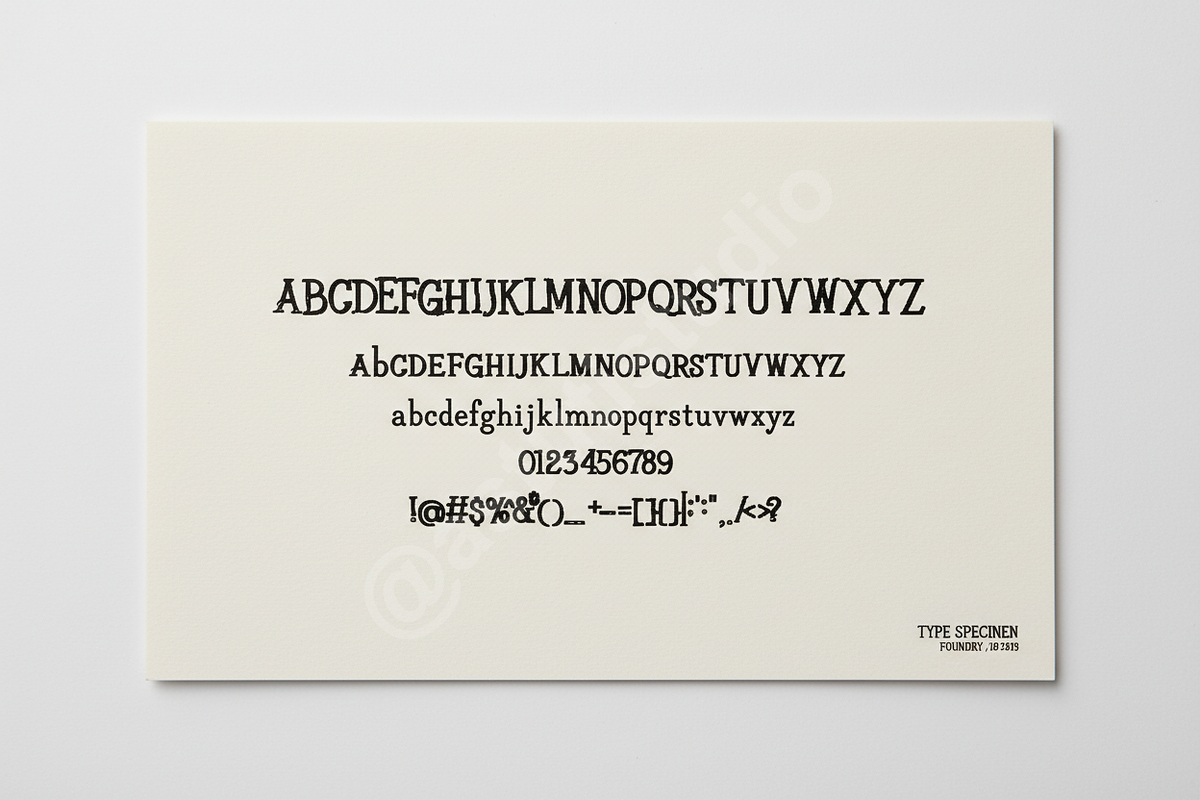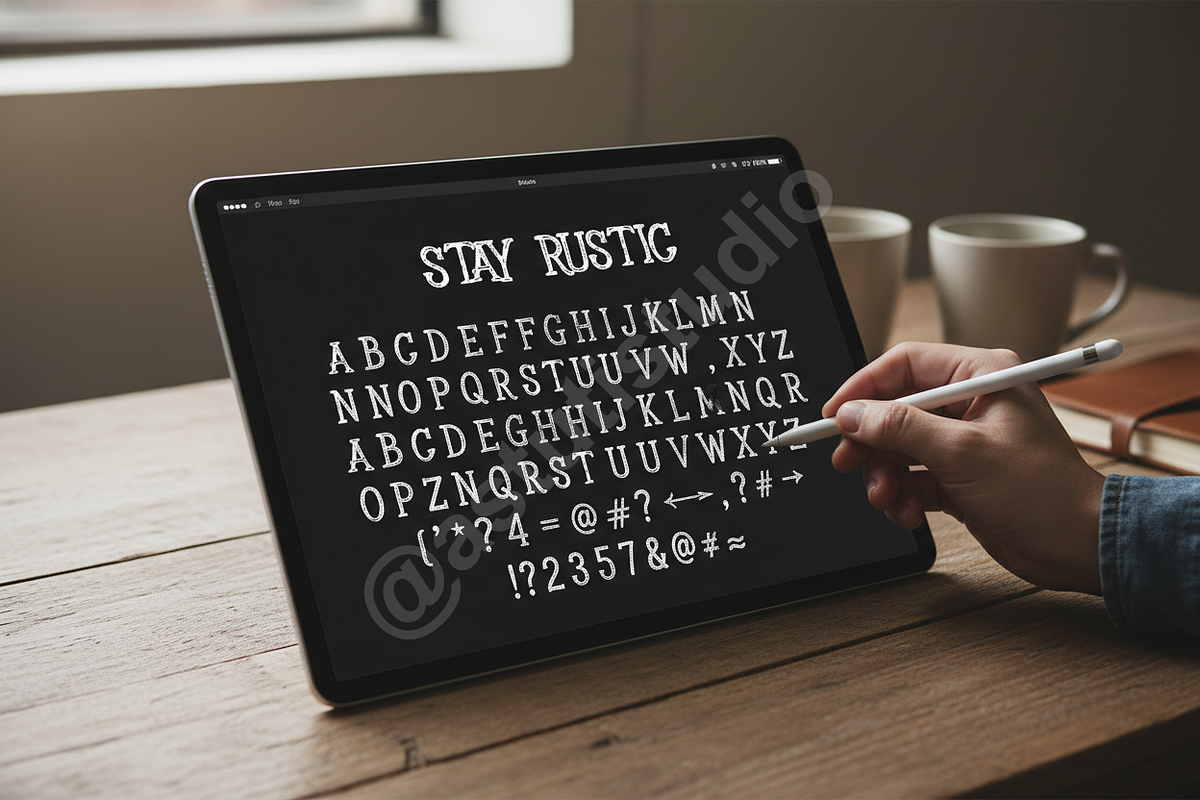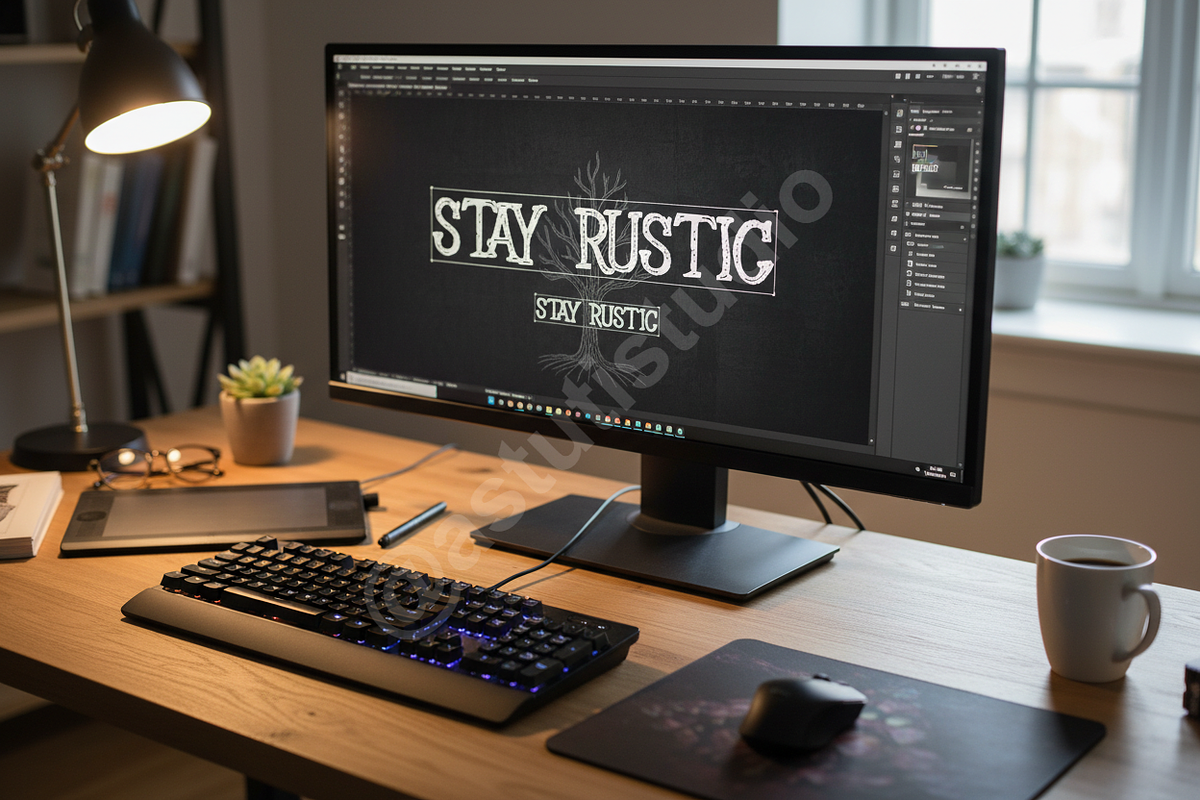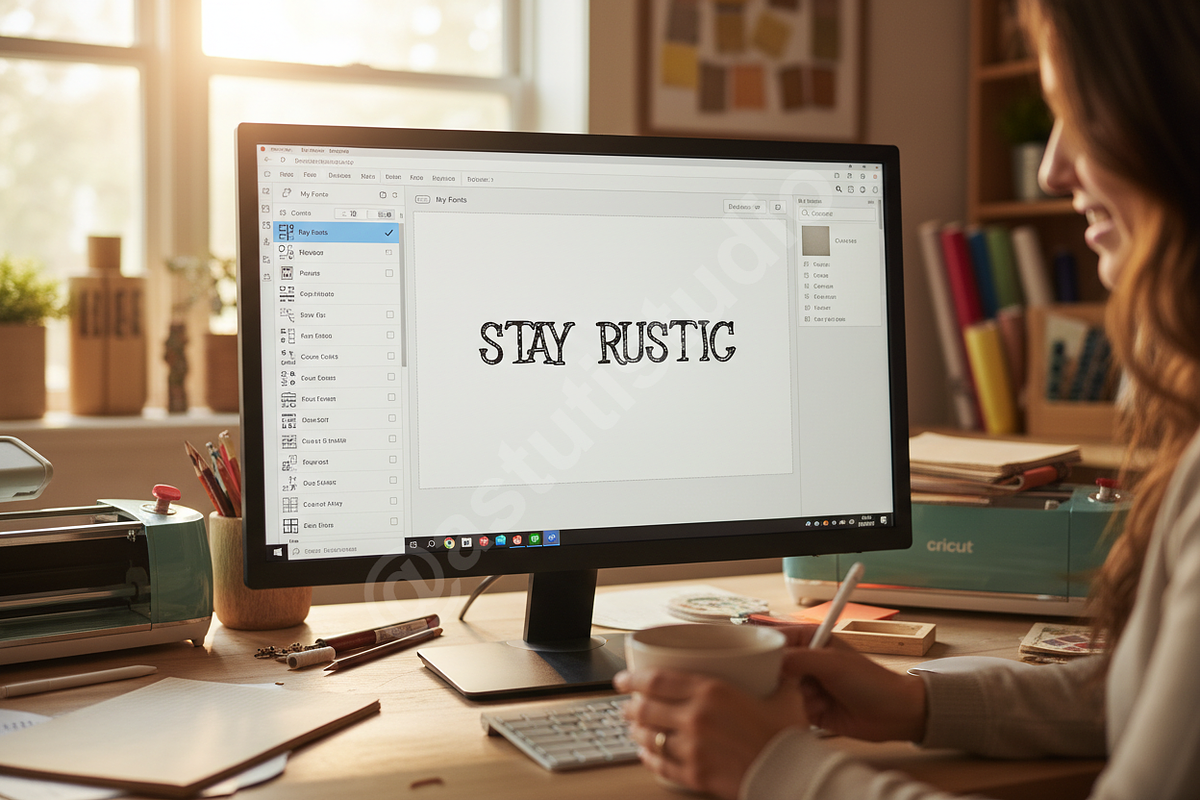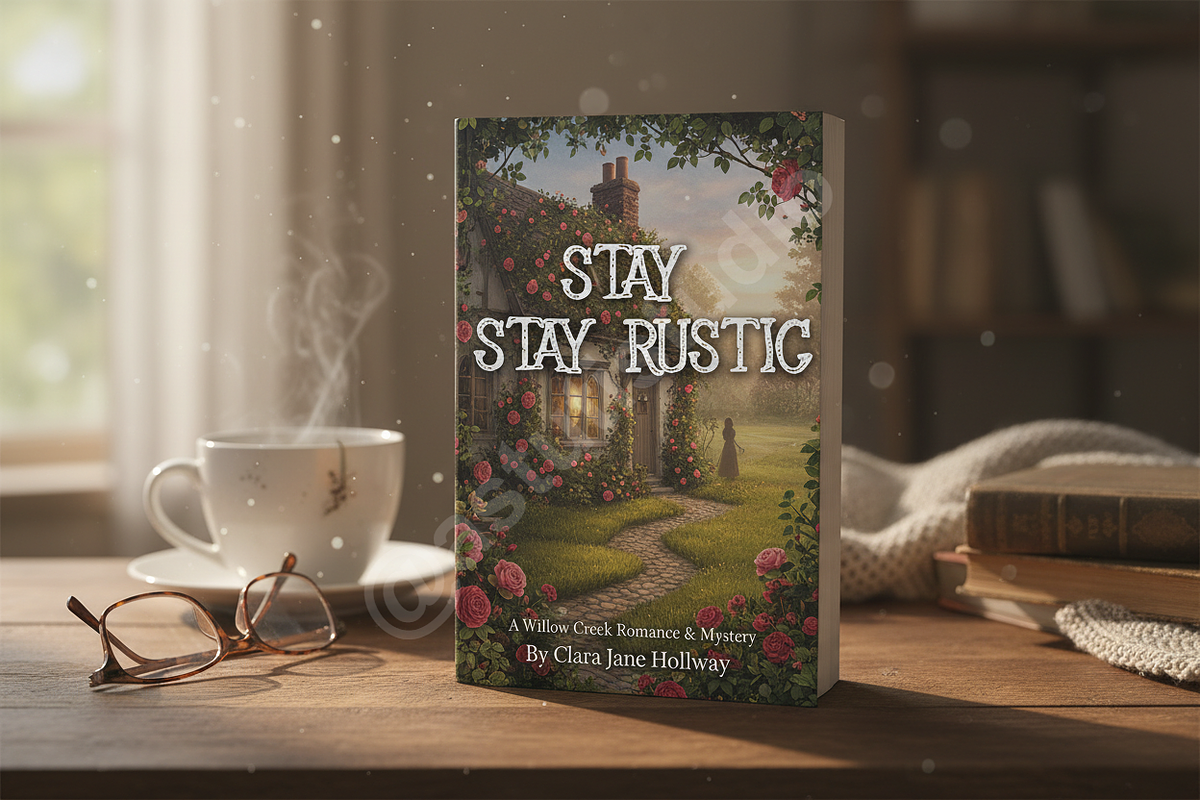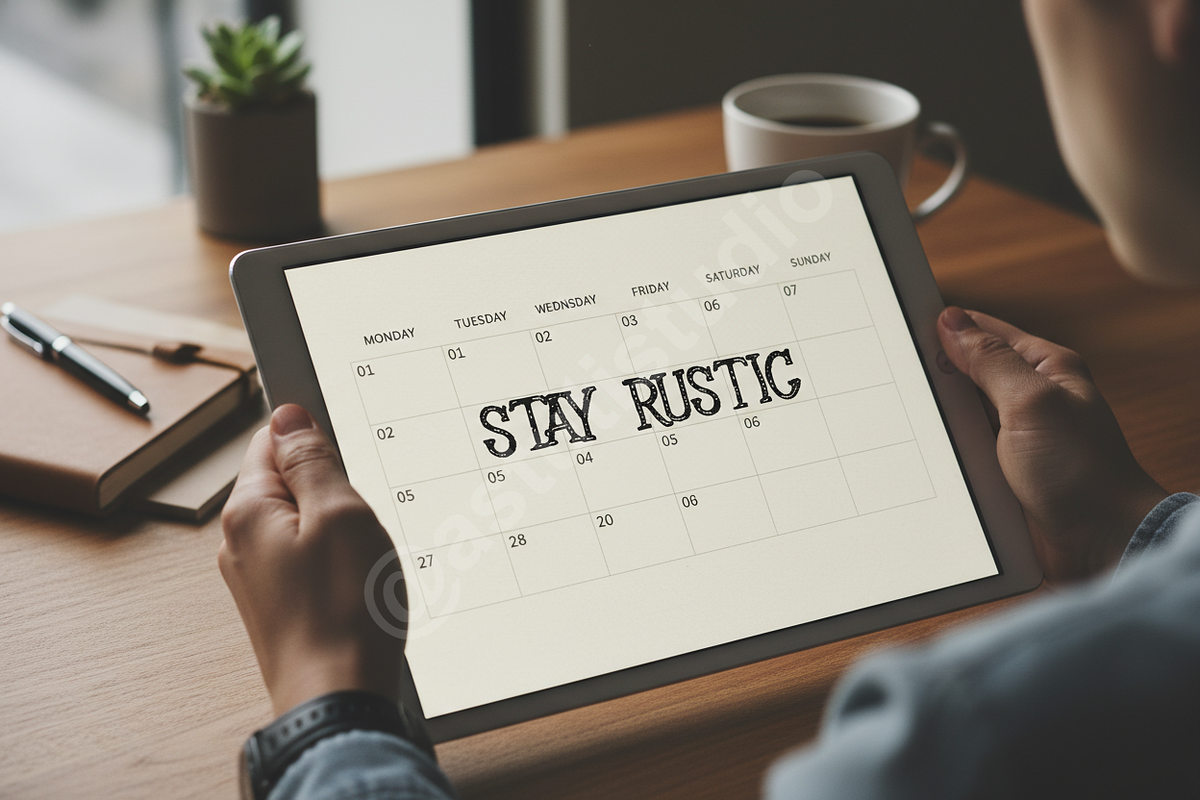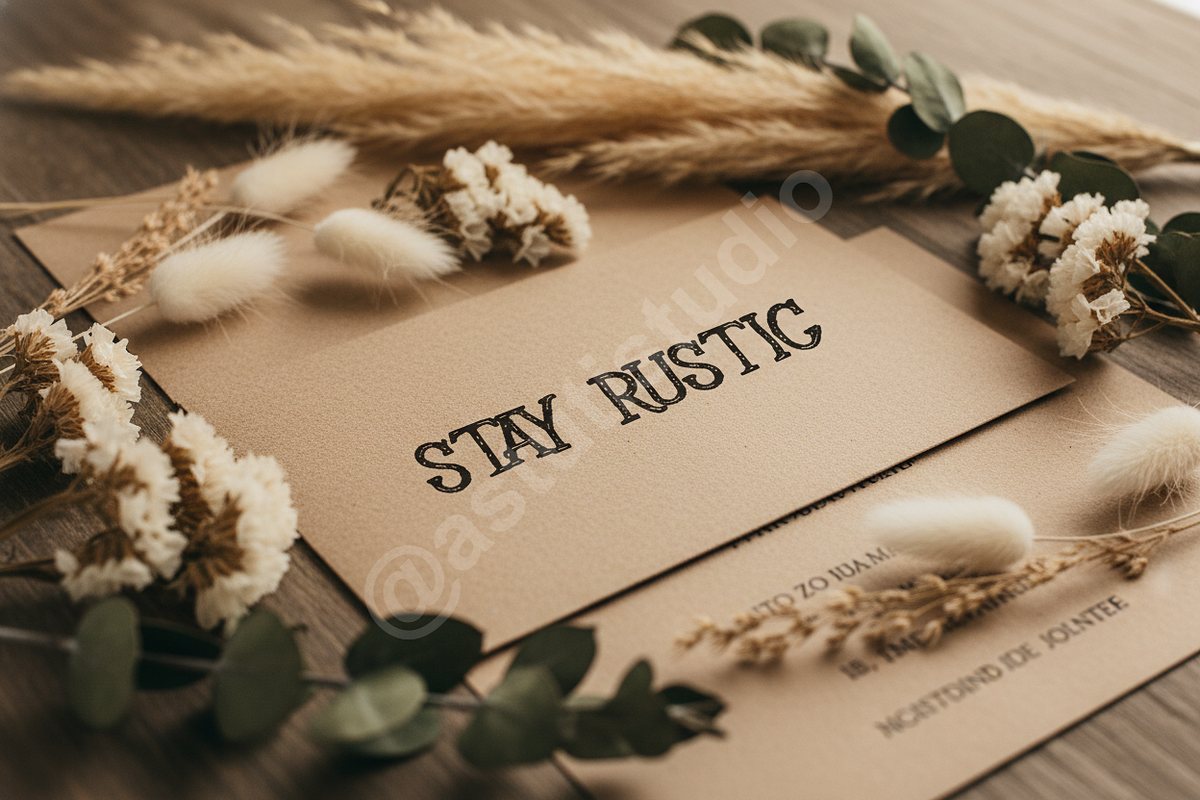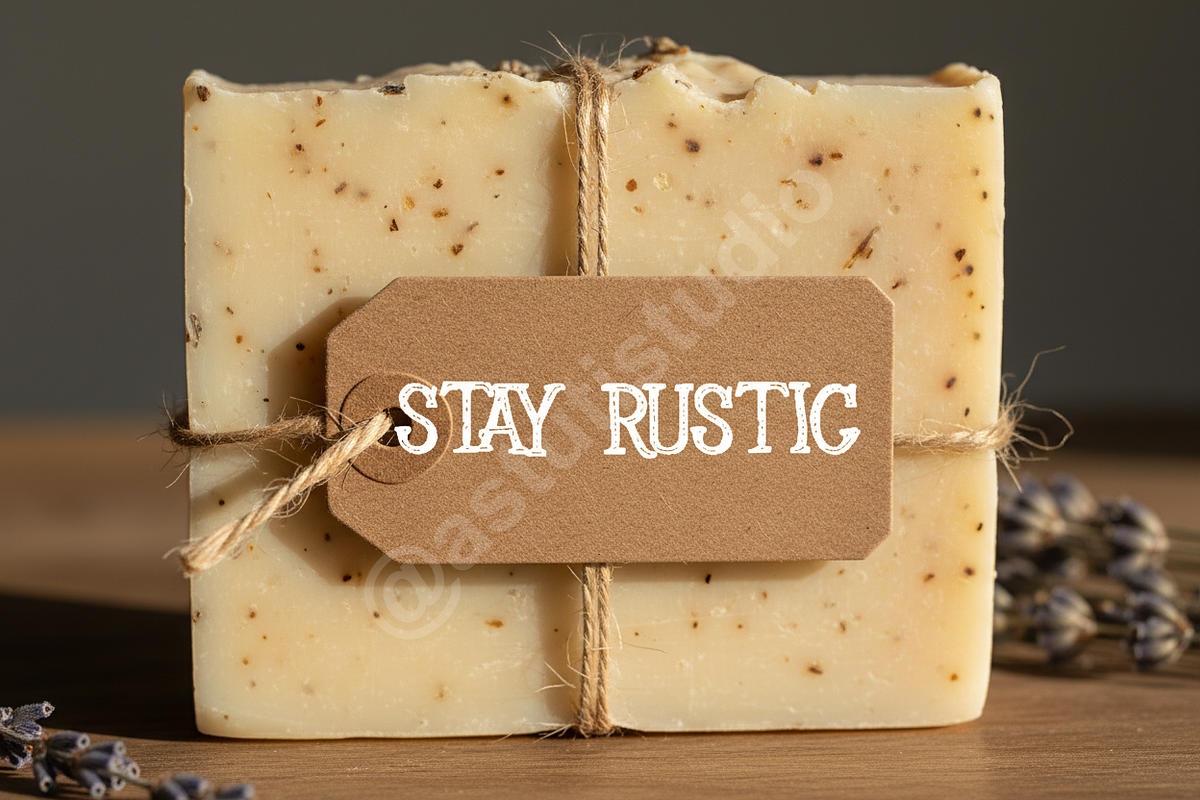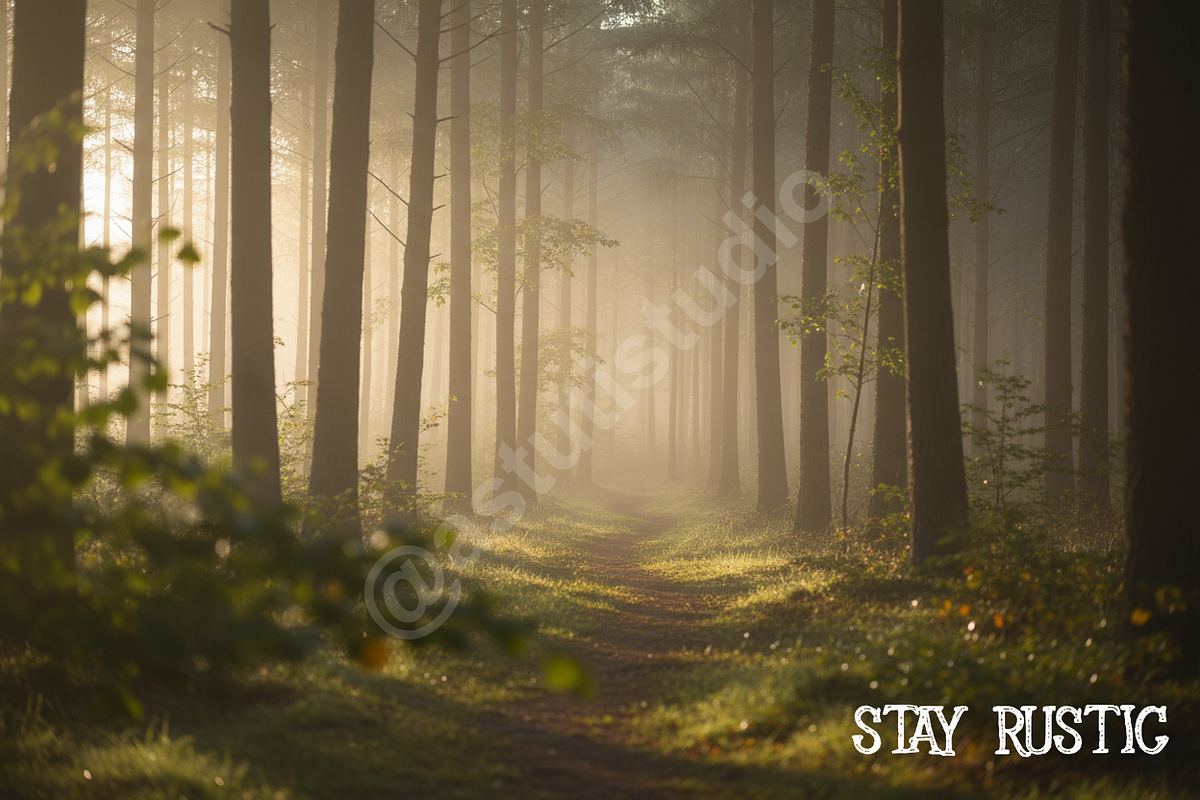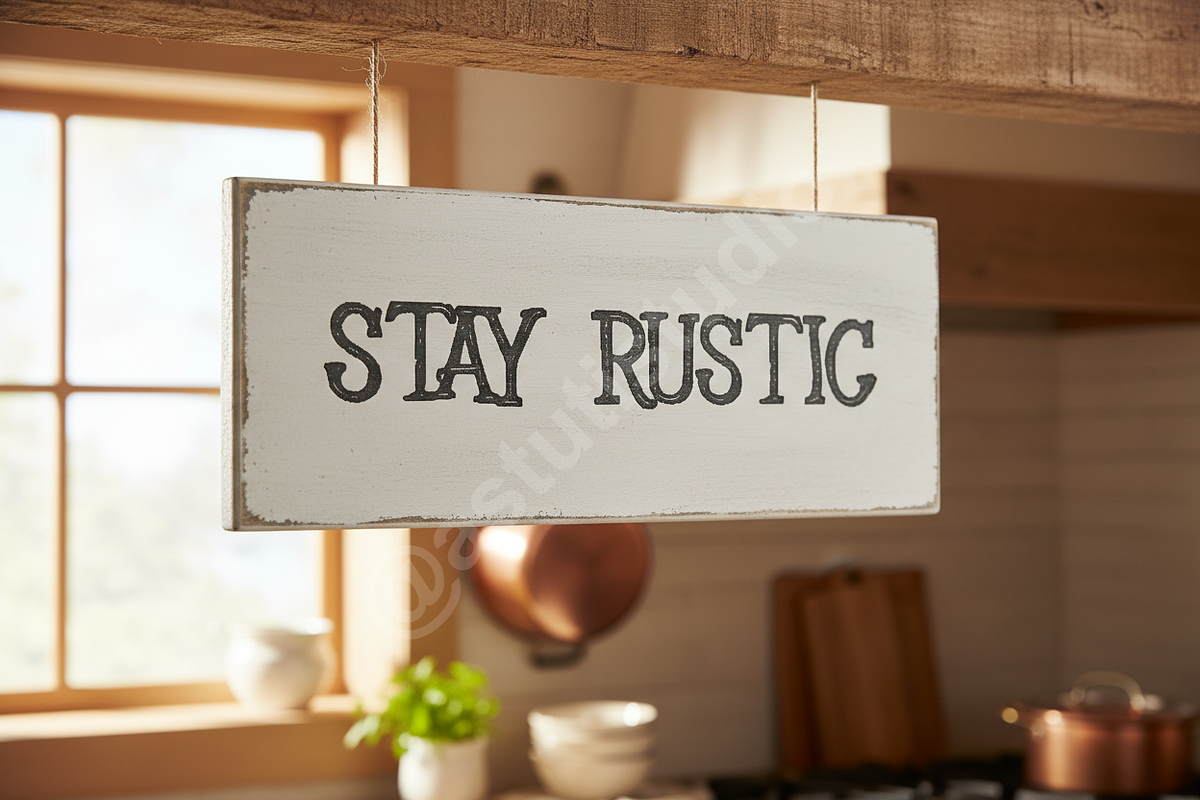
Dopu — Elegant Display Serif Font fo
Introducing Dopu, a meticulously crafted display serif font designed for the discerning creative. Dopu embodies timeless elegance, blending classic proportions with sharp, contemporary terminals. It is the definitive choice for projects demanding sophistication and unparalleled visual impact, seamlessly transitioning from high-fashion editorial layouts to minimalist digital interfaces, making it perfect for luxury branding, editorial design, and social media campaigns.
### Key Features
- Full set of Uppercase & Lowercase characters
- Extensive Punctuation and Numerals
- Elegant Standard and Discretionary Ligatures
- Comprehensive Multi-Language Support (20+ languages included)
- OpenType Features for effortless styling and typographic control
- Optimized Kerning for flawless readability, even at large sizes